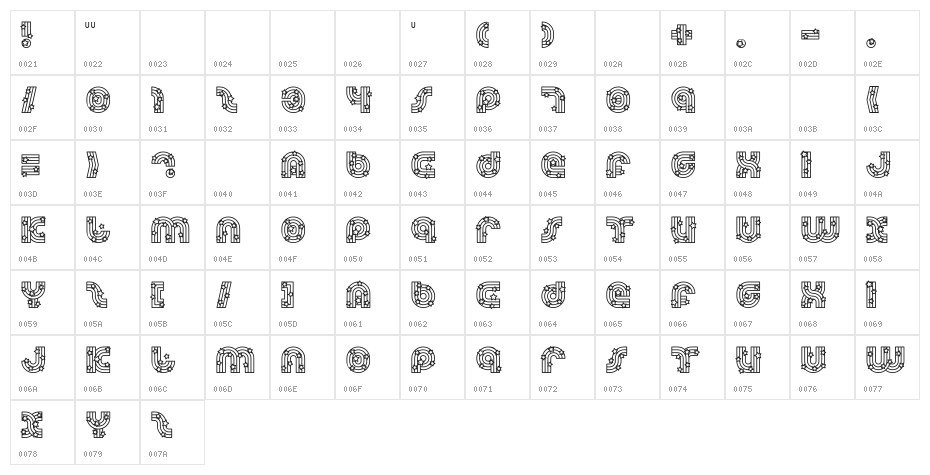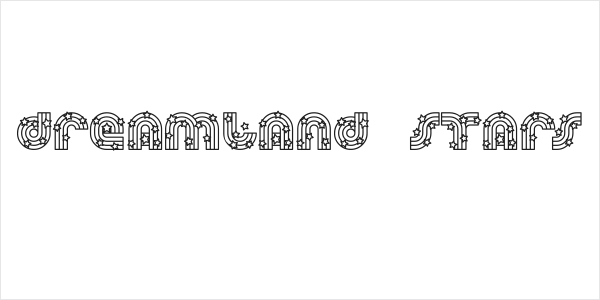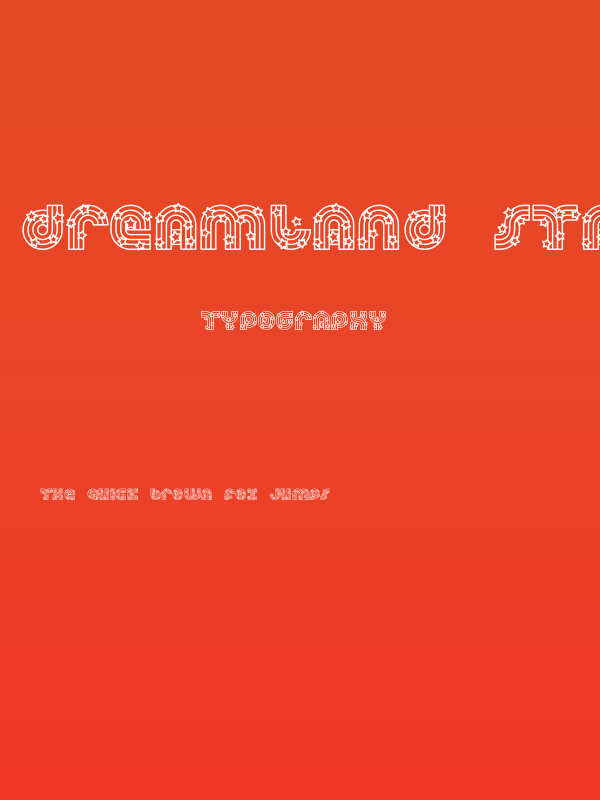
Dreamland Stars Font
Dreamland Stars Description
This font features a whimsical and decorative style, characterized by intricate patterns and star motifs integrated into each letterform. The design is highly detailed, with each character composed of multiple layers and lines, creating a sense of depth and complexity. The overall appearance is playful and imaginative, making it ideal for creative and artistic projects. The font maintains a consistent structure across uppercase, lowercase, and numeric characters, ensuring readability while still embracing its decorative nature. Special characters are also adorned with similar embellishments, maintaining the cohesive theme throughout.
Proposed ProjectsIdeal for children's book covers, fantasy-themed posters, and creative branding projects.